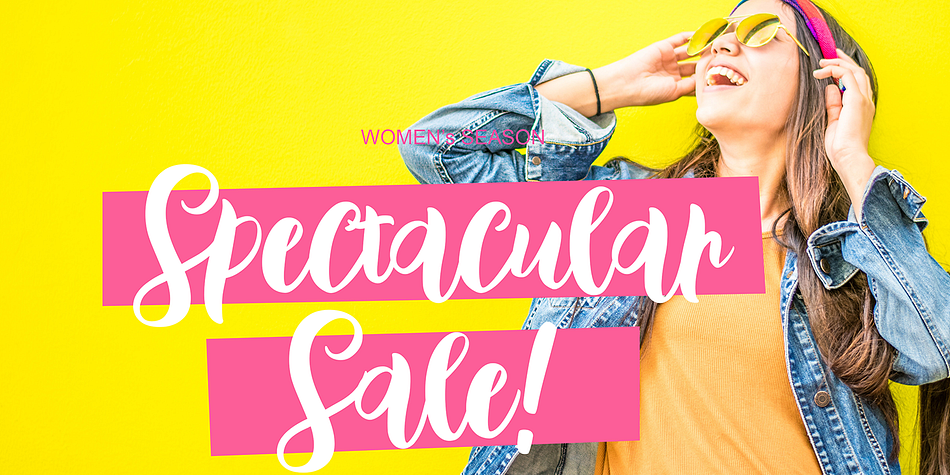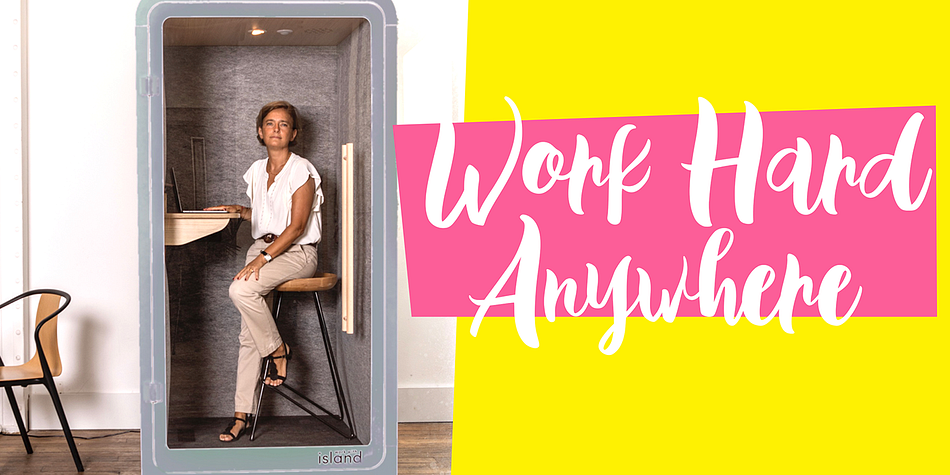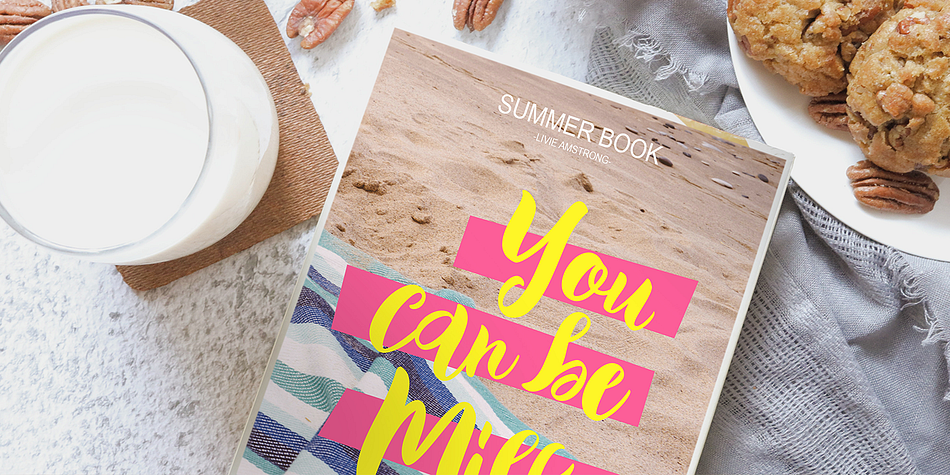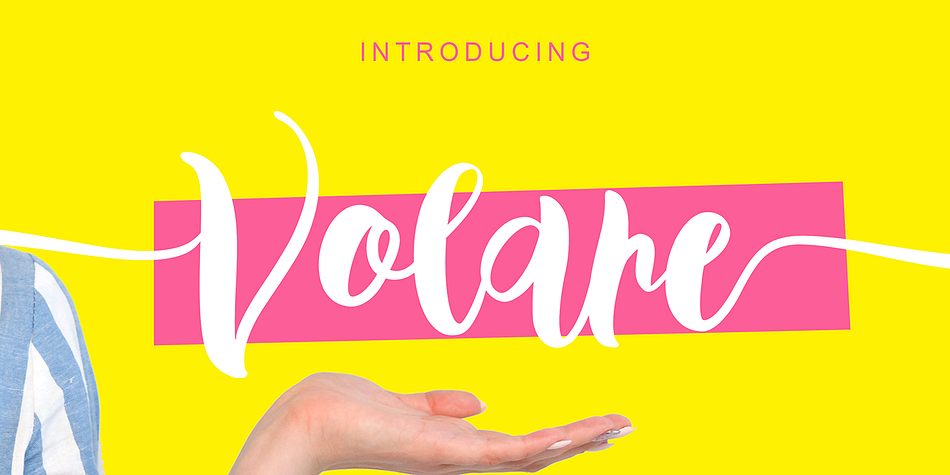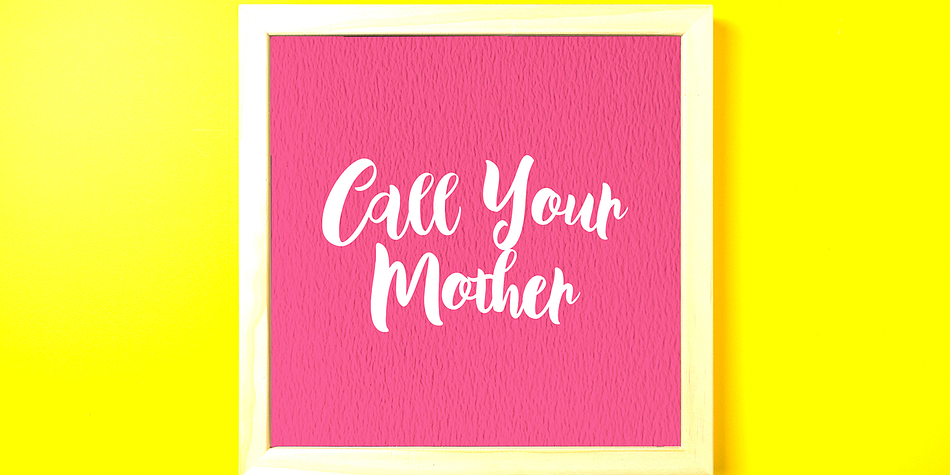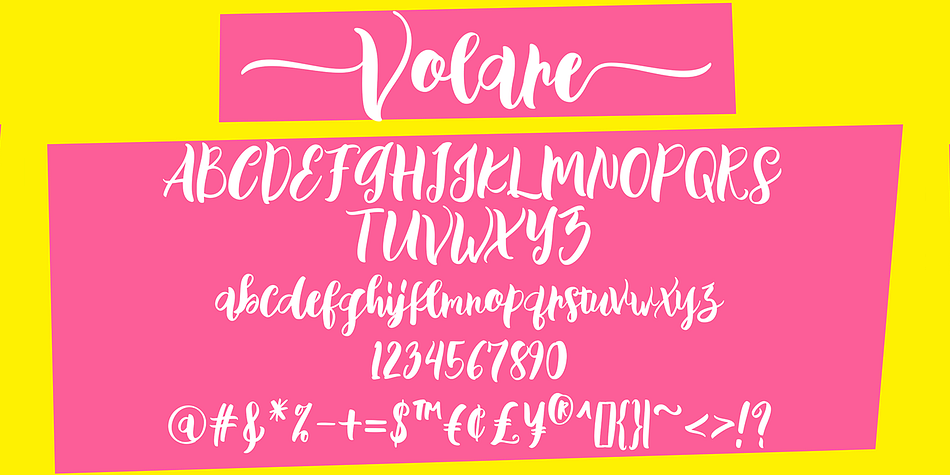
Volare
Volare is a brush script font family published by Gatype.
Volare latest style letters are perfect for wall displays, social media post logos, advertisements, product packaging, product designs, labels, photography, watermarks, invitations, stationery, and any project that turn creative idea into a true piece of art.